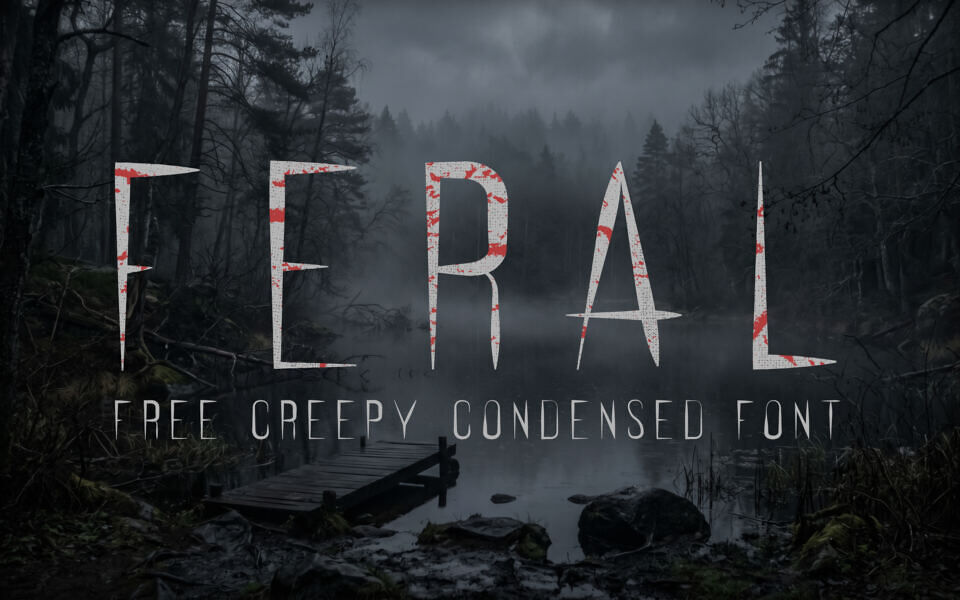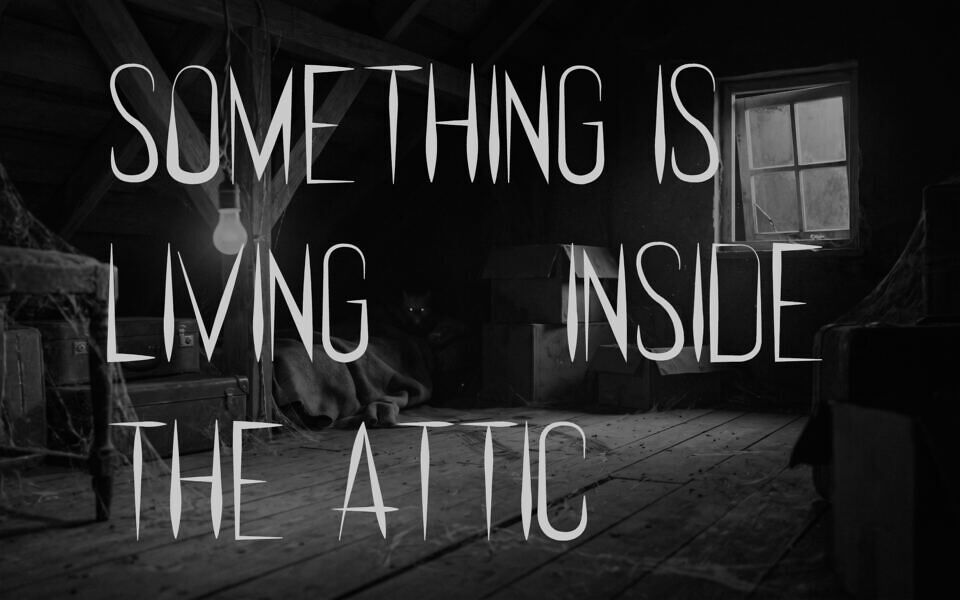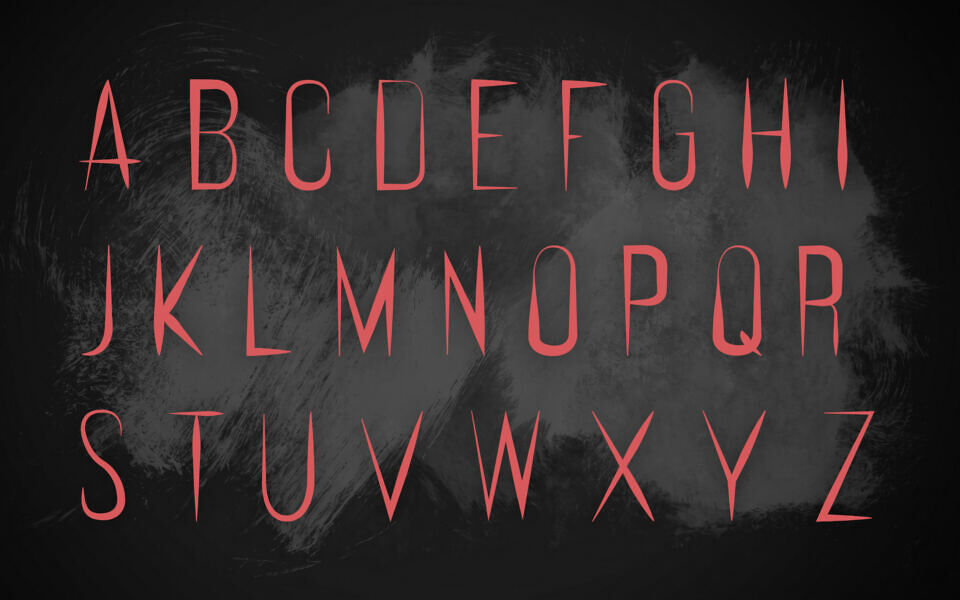
Feral is a free, creepy condensed font designed to inject a sinister edge into your headings. Inspired by Tim Burton, this typeface features tall, razor-thin letterforms with sharp, fang-like serifs that evoke the feeling of teeth piercing skin at midnight.
Perfect for horror-themed designs, Halloween posters, or any creative asset needing a dark, repulsive touch. Add a chilling, impulsive atmosphere to your next typography project.